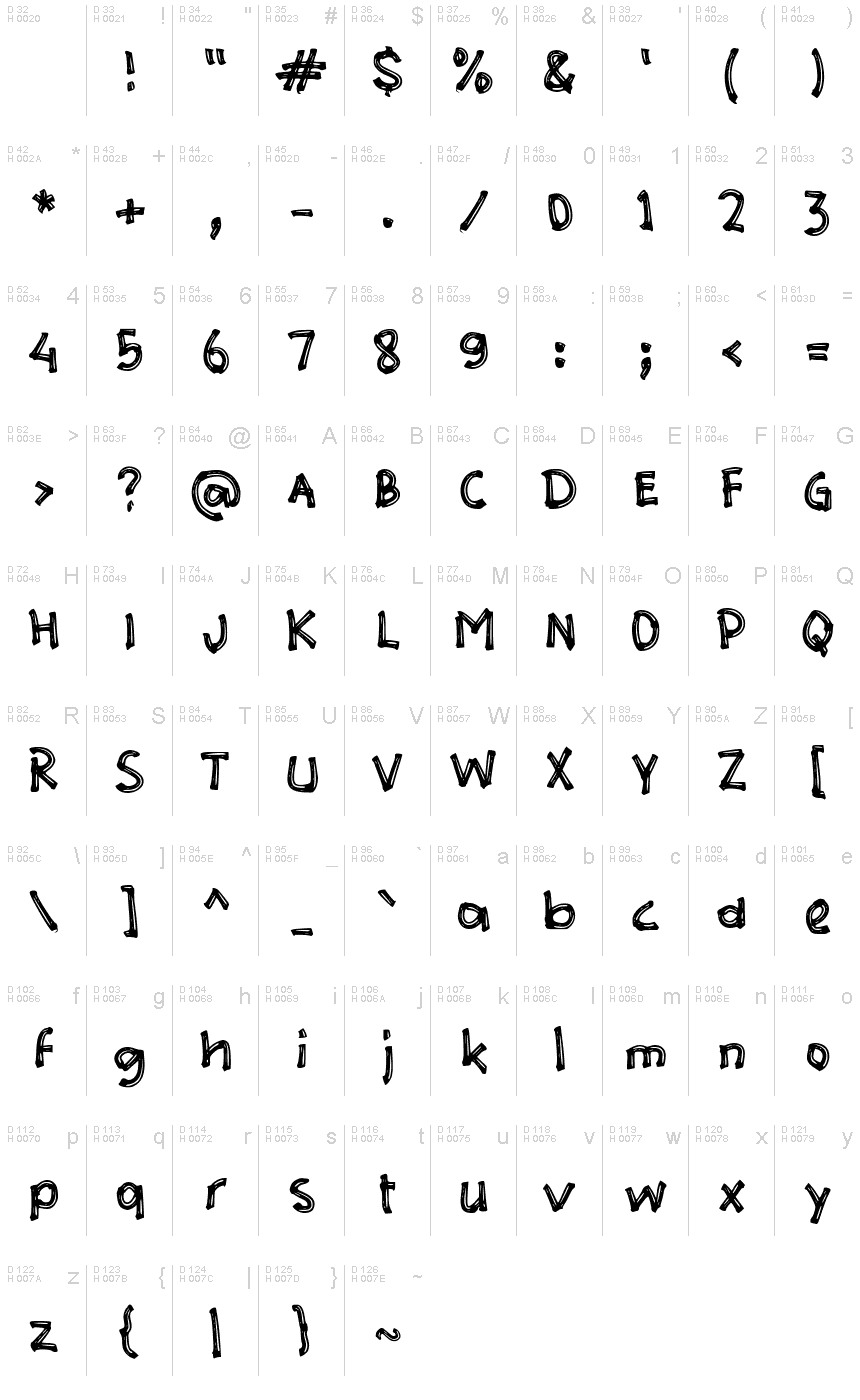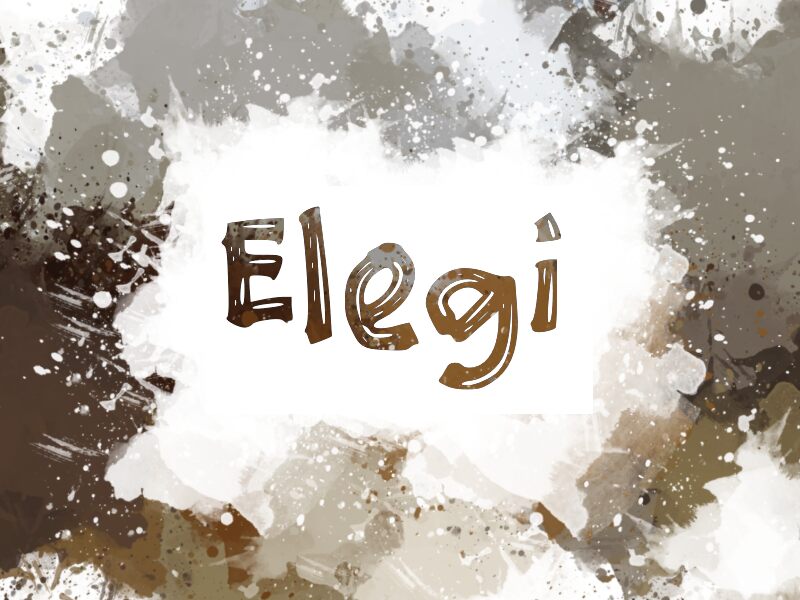
Elegi
ElegiElegi is a stunning semi-bold handwritten marker font that truly captures the essence of creativity. Designed by wep, this font boasts a unique style that is perfect for a variety of projects. Whether you want to add a touch of elegance to your wedding invitations or create bold headlines for your website, ElegiElegi has got you covered. The handwritten marker style adds a personal touch to any project, making it ideal for branding and logo designs as well. With its impeccable legibility and sophisticated charm, ElegiElegi is the perfect choice for artists, designers, and creatives alike.